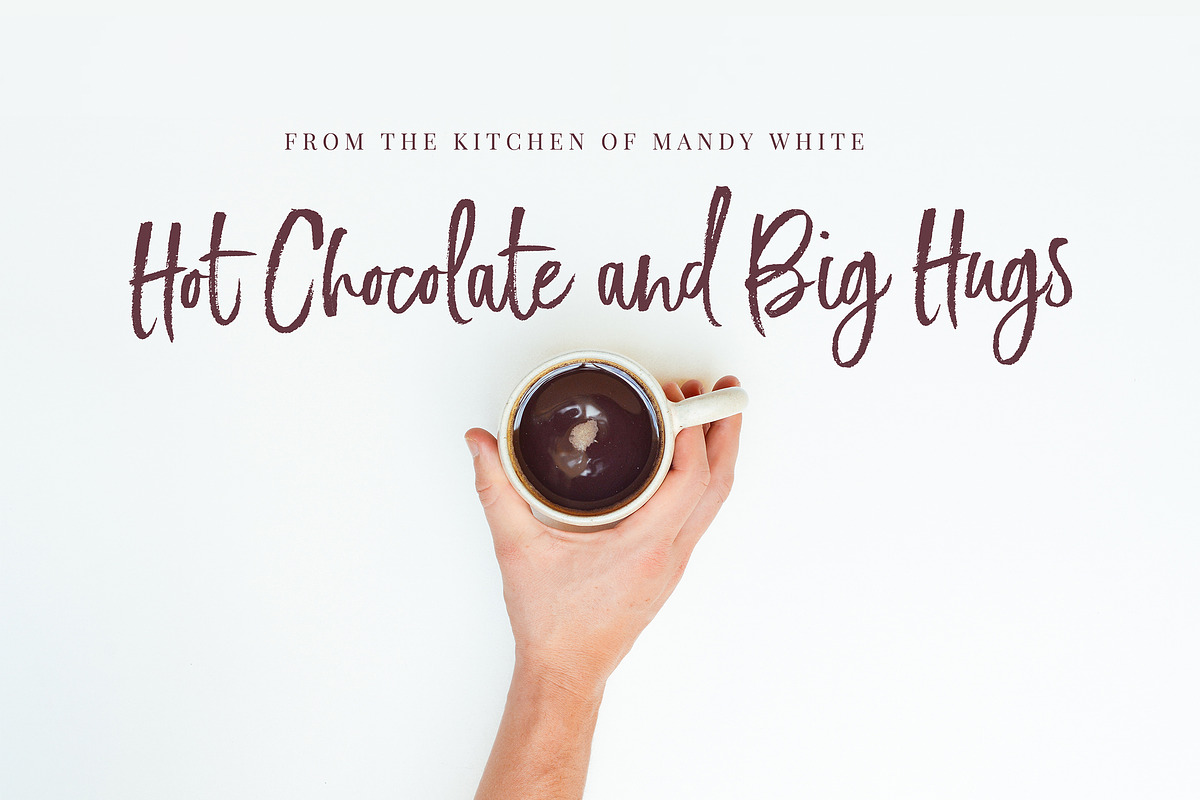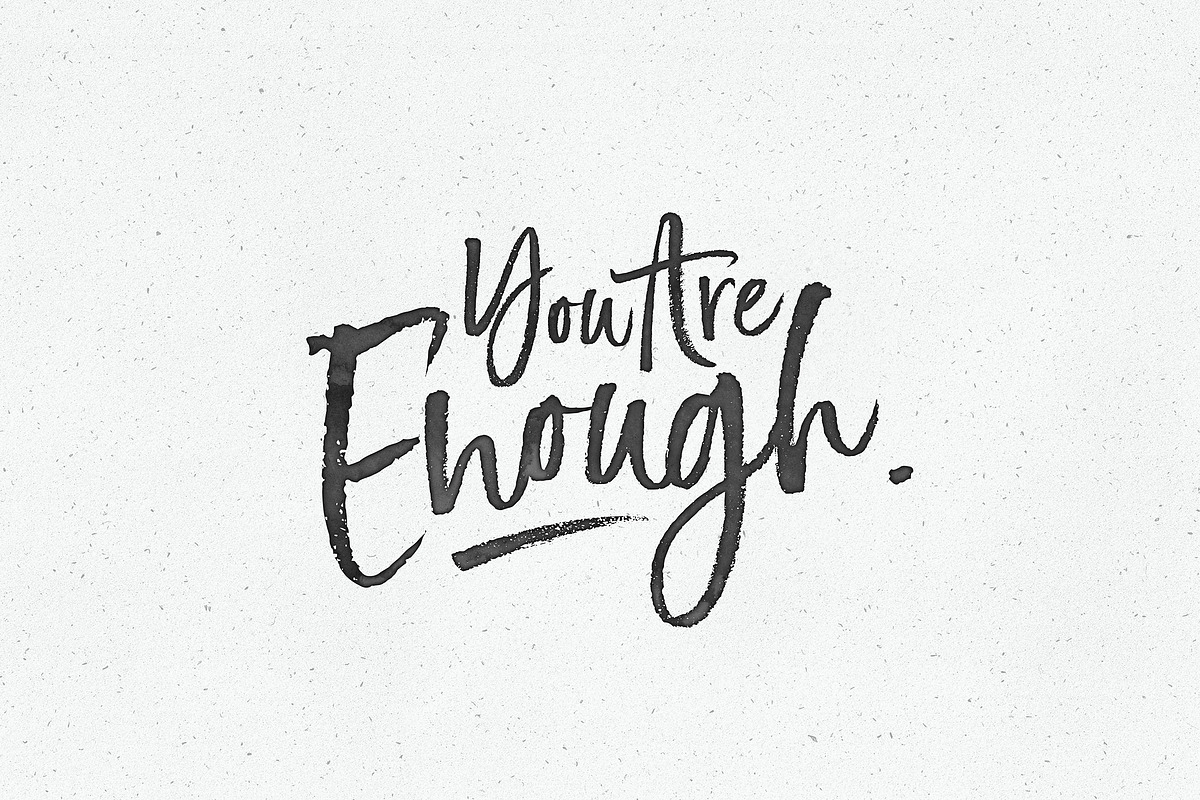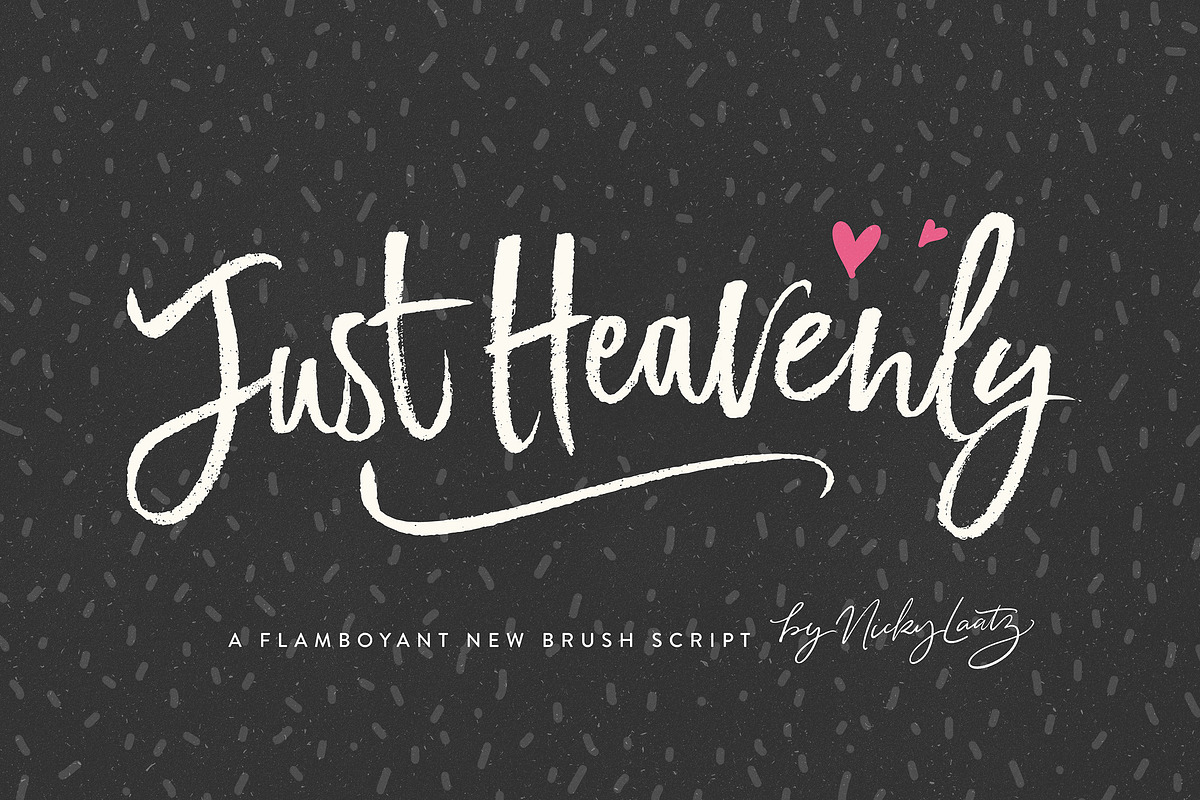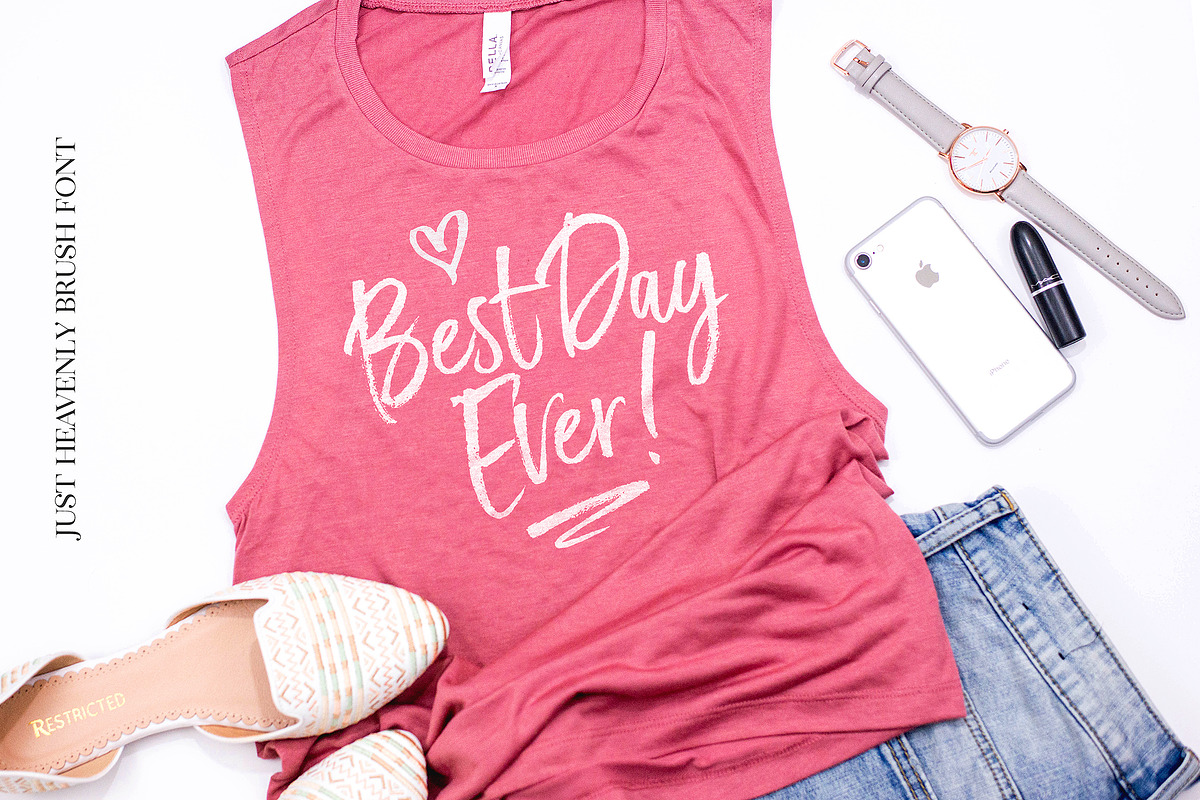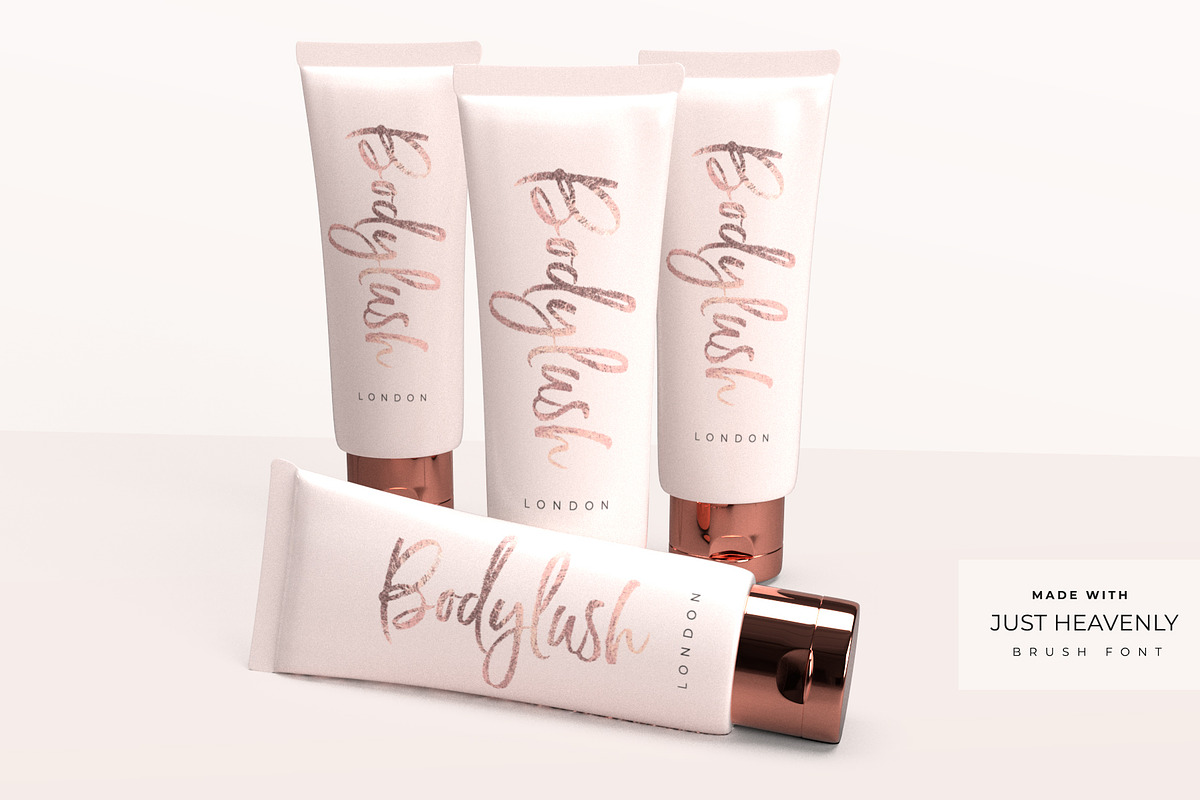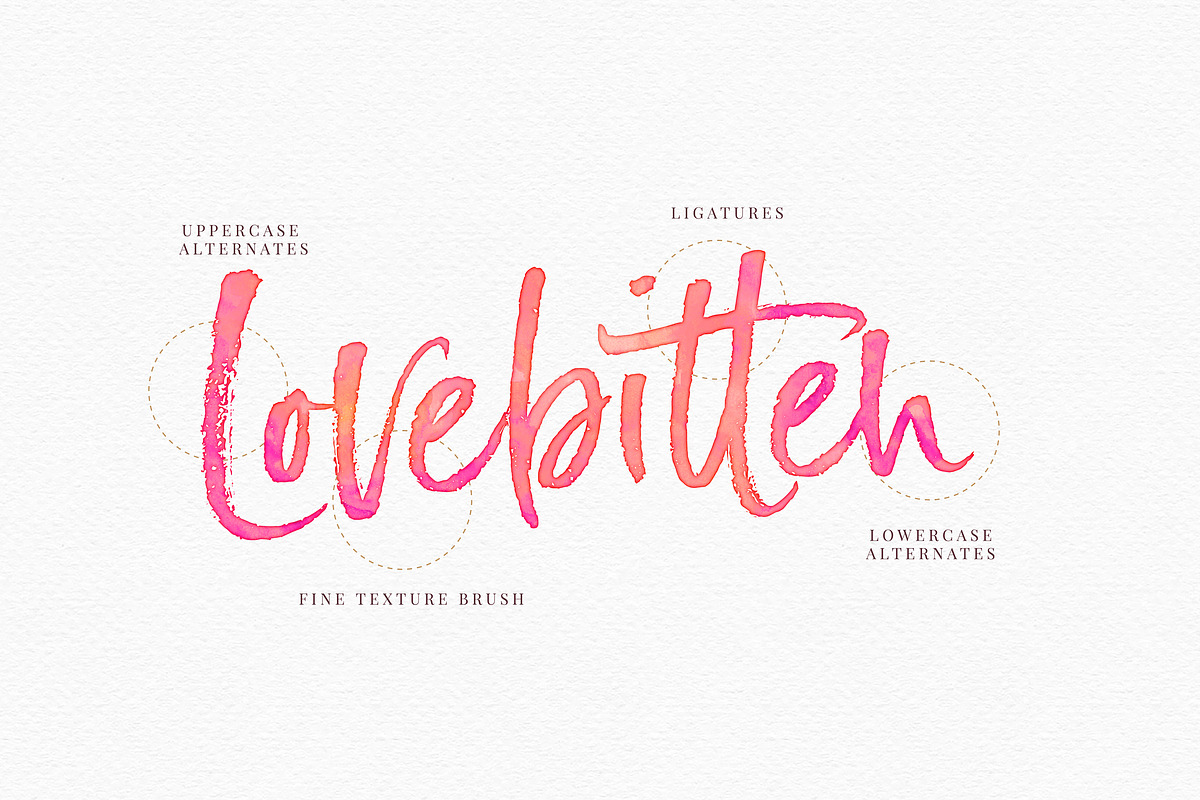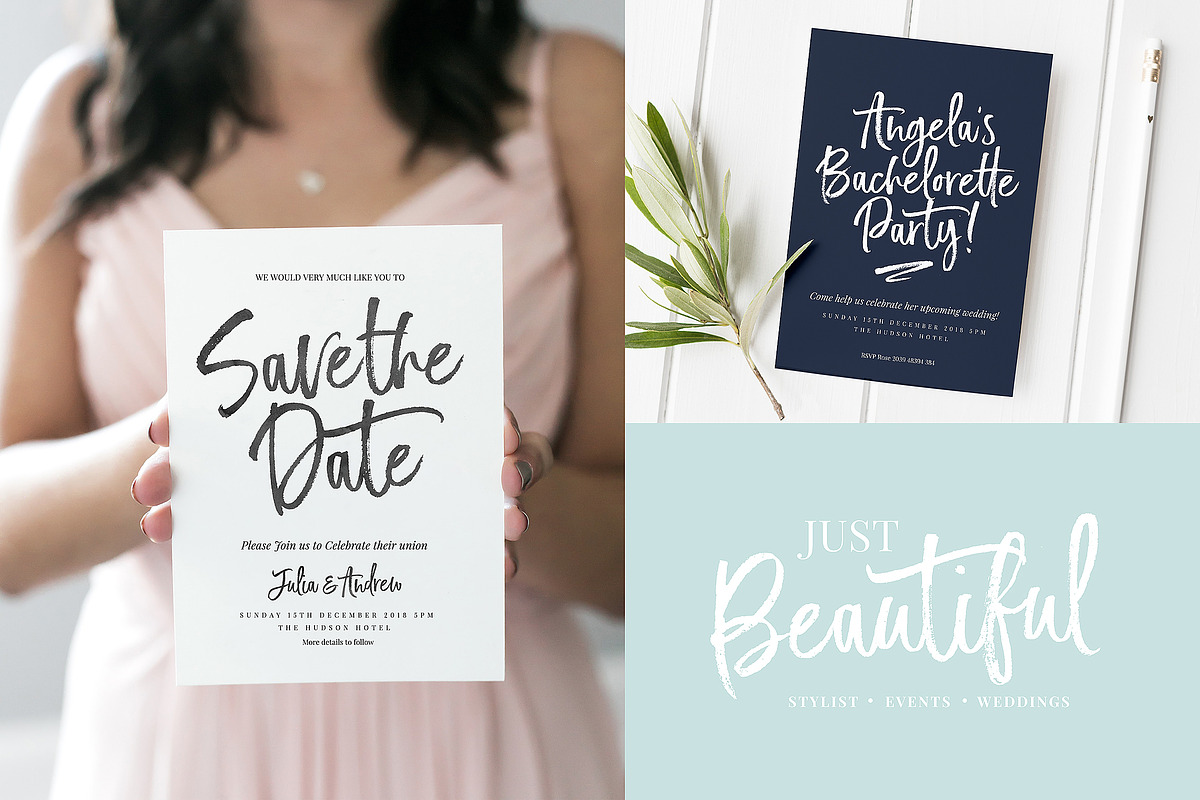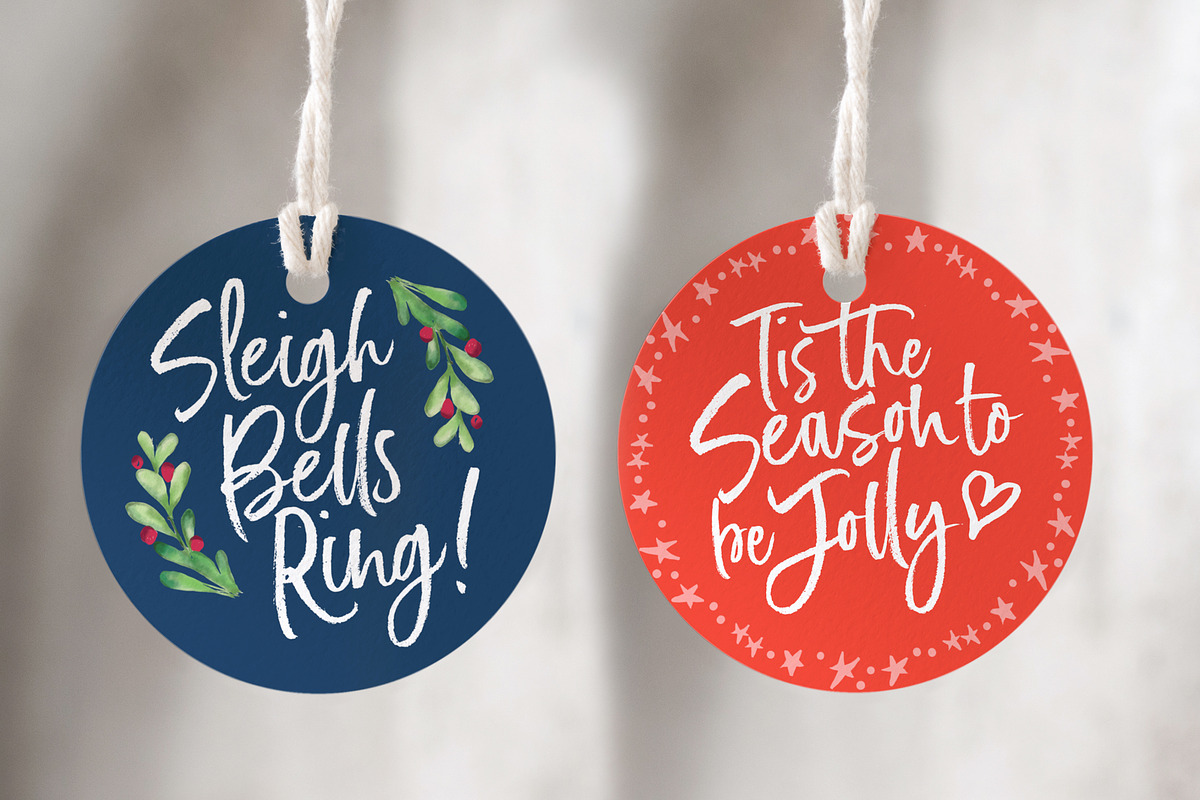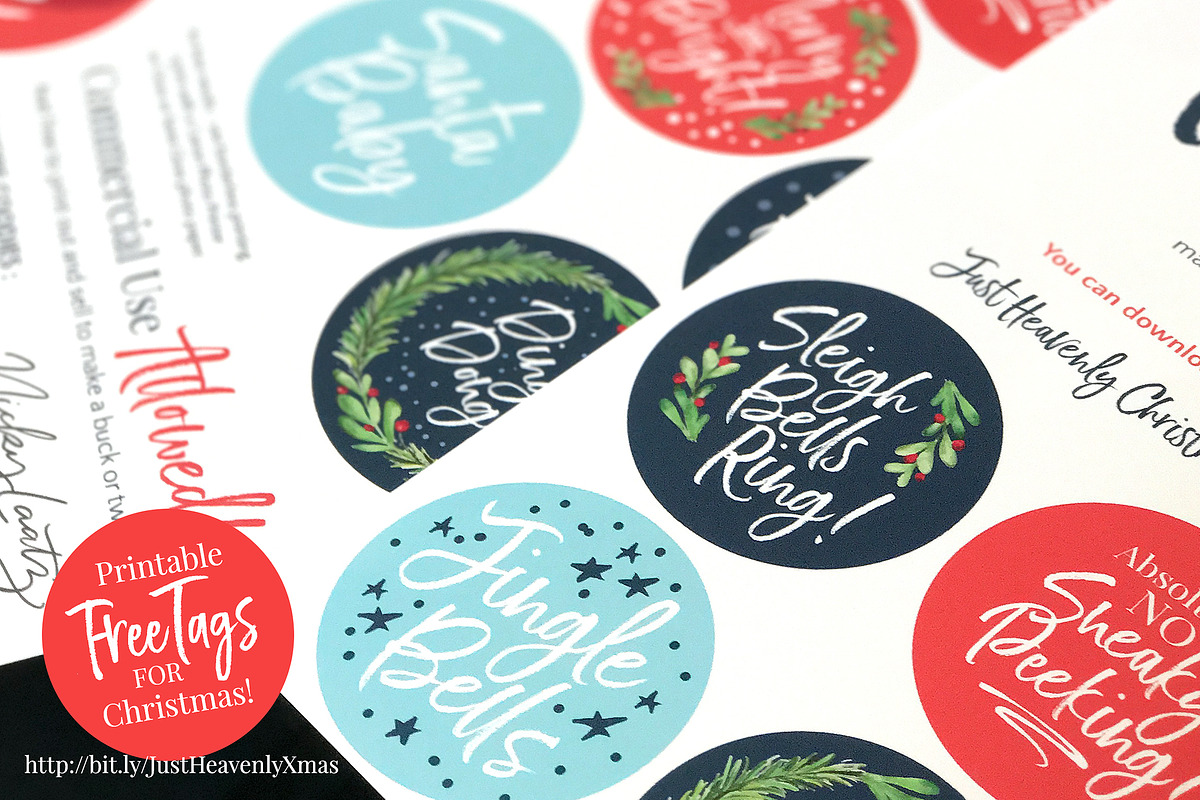
Just Heavenly Brush Font & Extras
Say hello to JUST HEAVENLY - A fabulously-flamboyant brush font, with sumptuous strokes and touches of texture that will make you want to sway and swoon :)
Just Heavenly was created to give your type designs a fresh hand-brushed look. To make your designs look even more natural and unique, Just Heavenly has a fabulous selection of ligatures and alternate letters built in.
Just Heavenly actually has a whole extra set of uppercase AND lowercase alternate letters - so you are guaranteed to find just the right feel for your project. These are all provided as a whole extra font for folks without special Opentype capable software :)
That's not all :) Just Heavenly comes with 62 lovely flamboyant swashes and ornaments as a separate font - Just add a swash, and watch your design pop in an instant :)